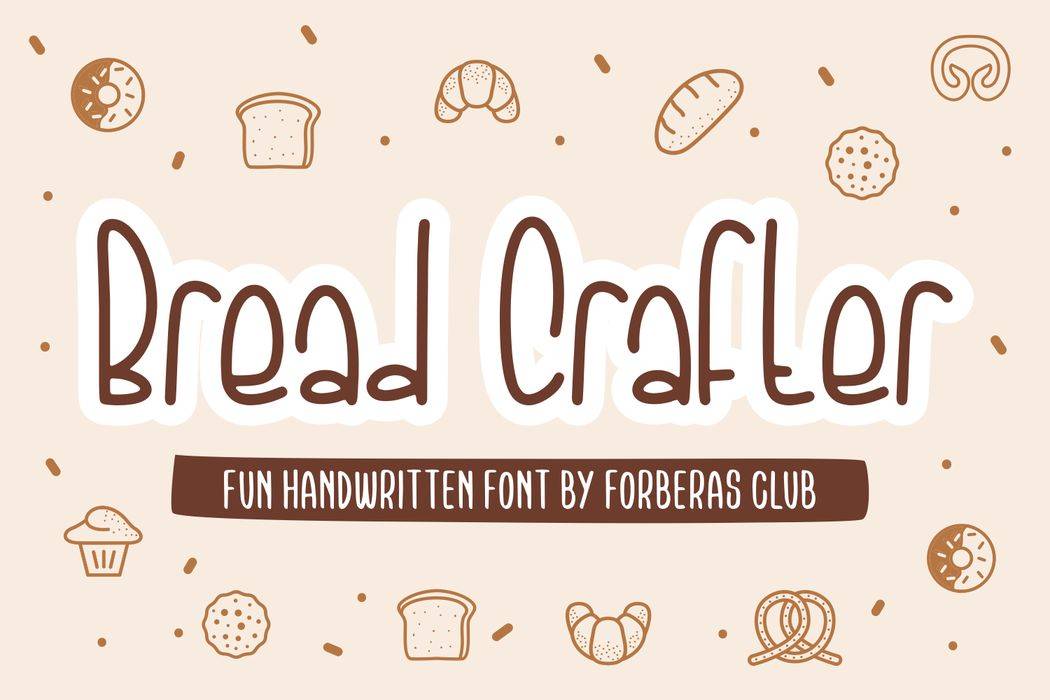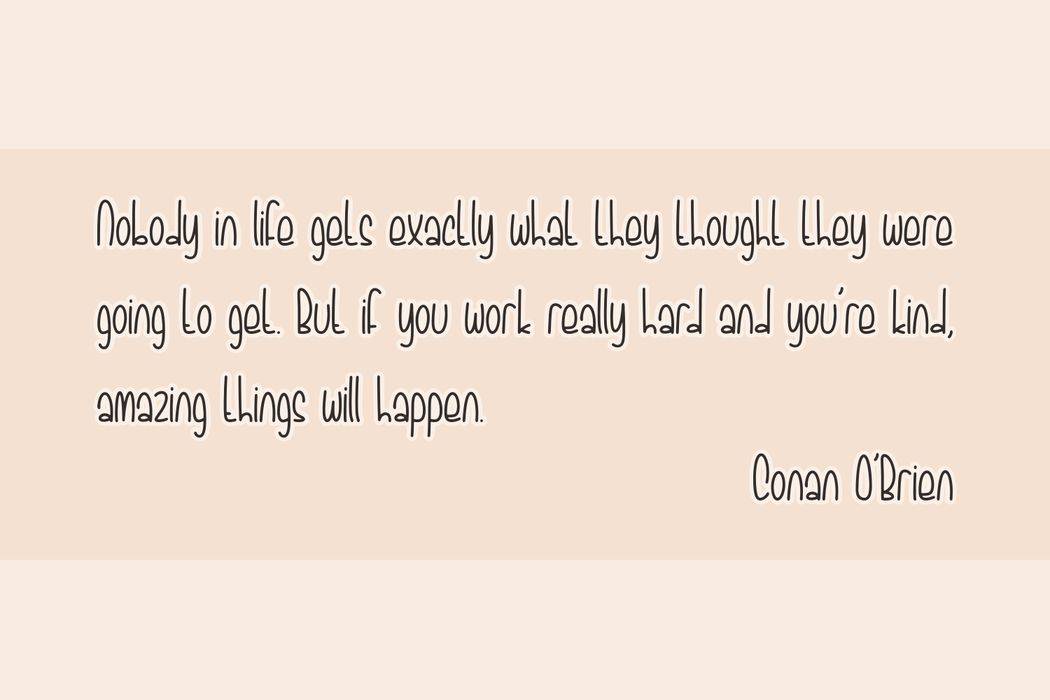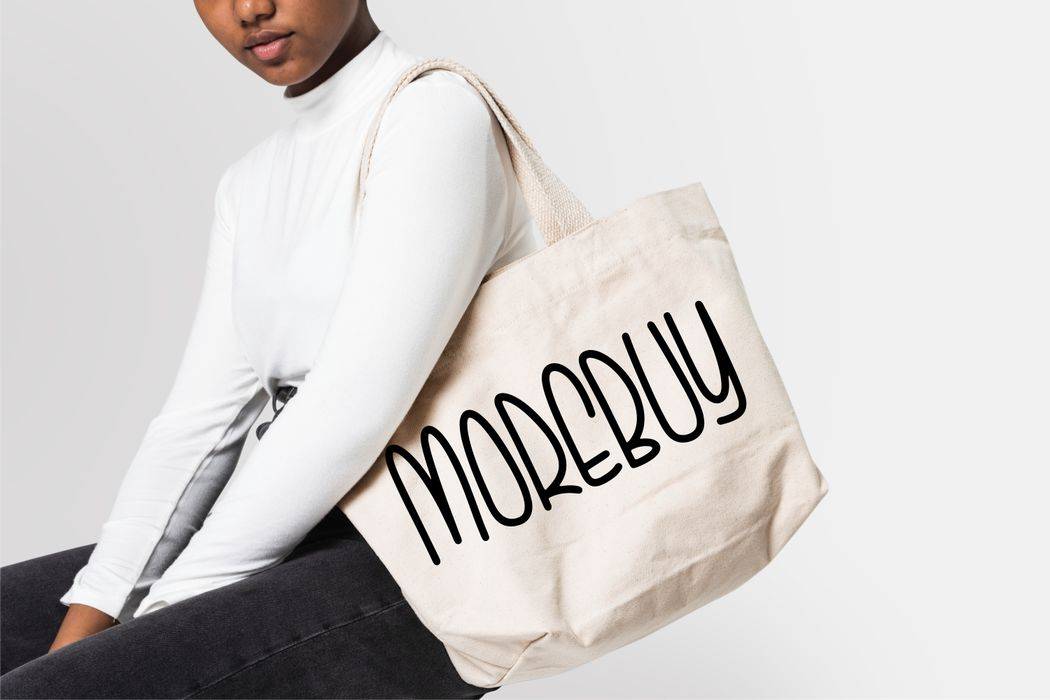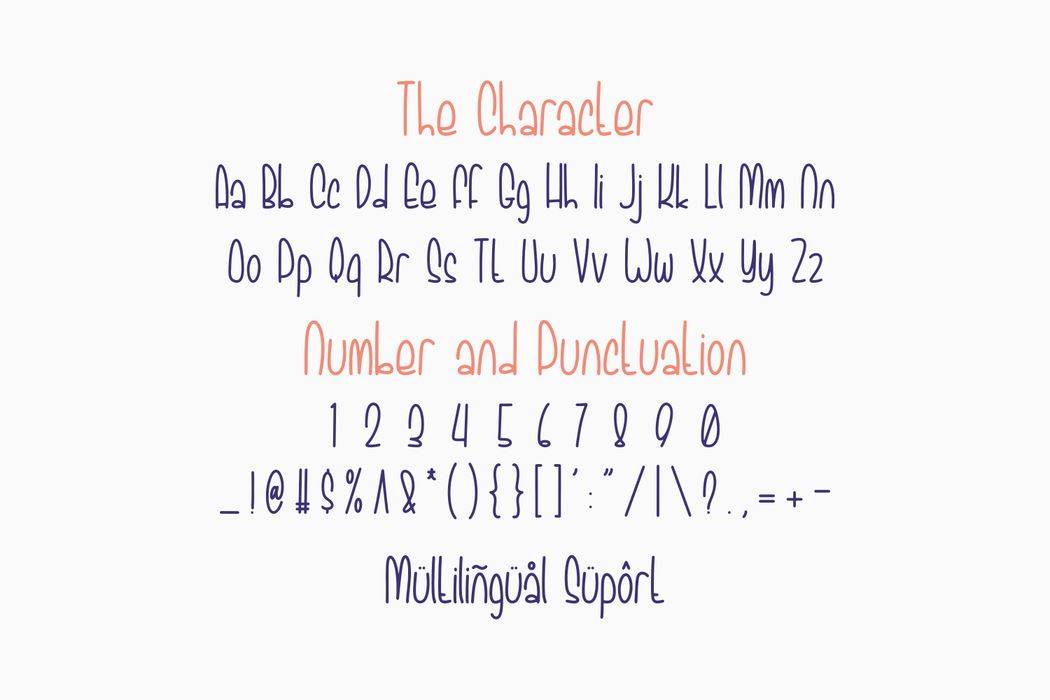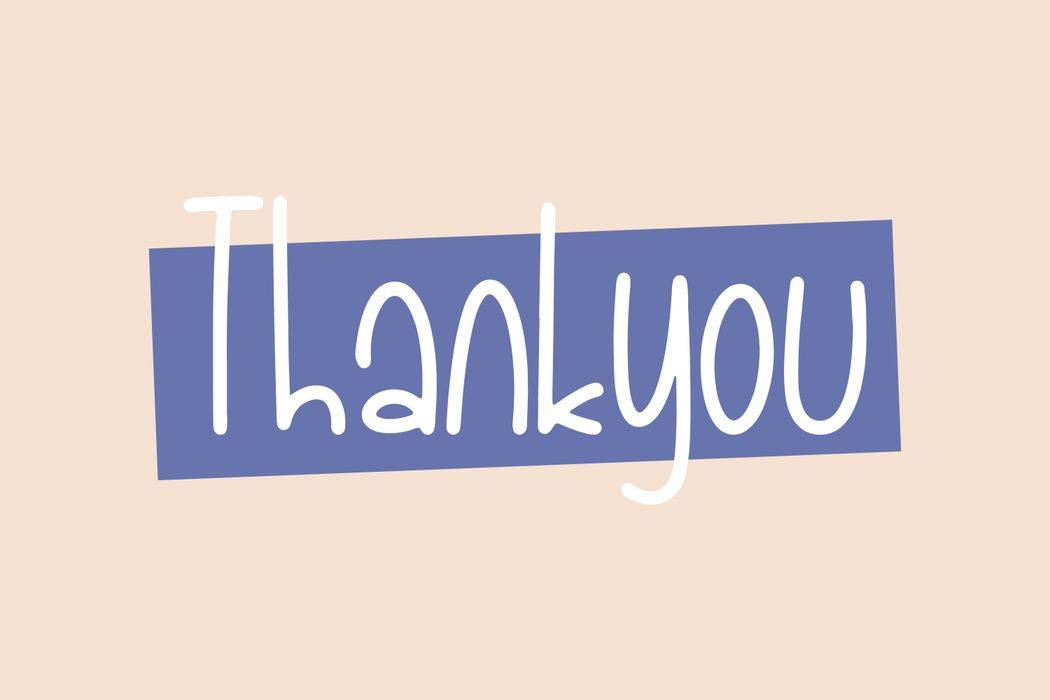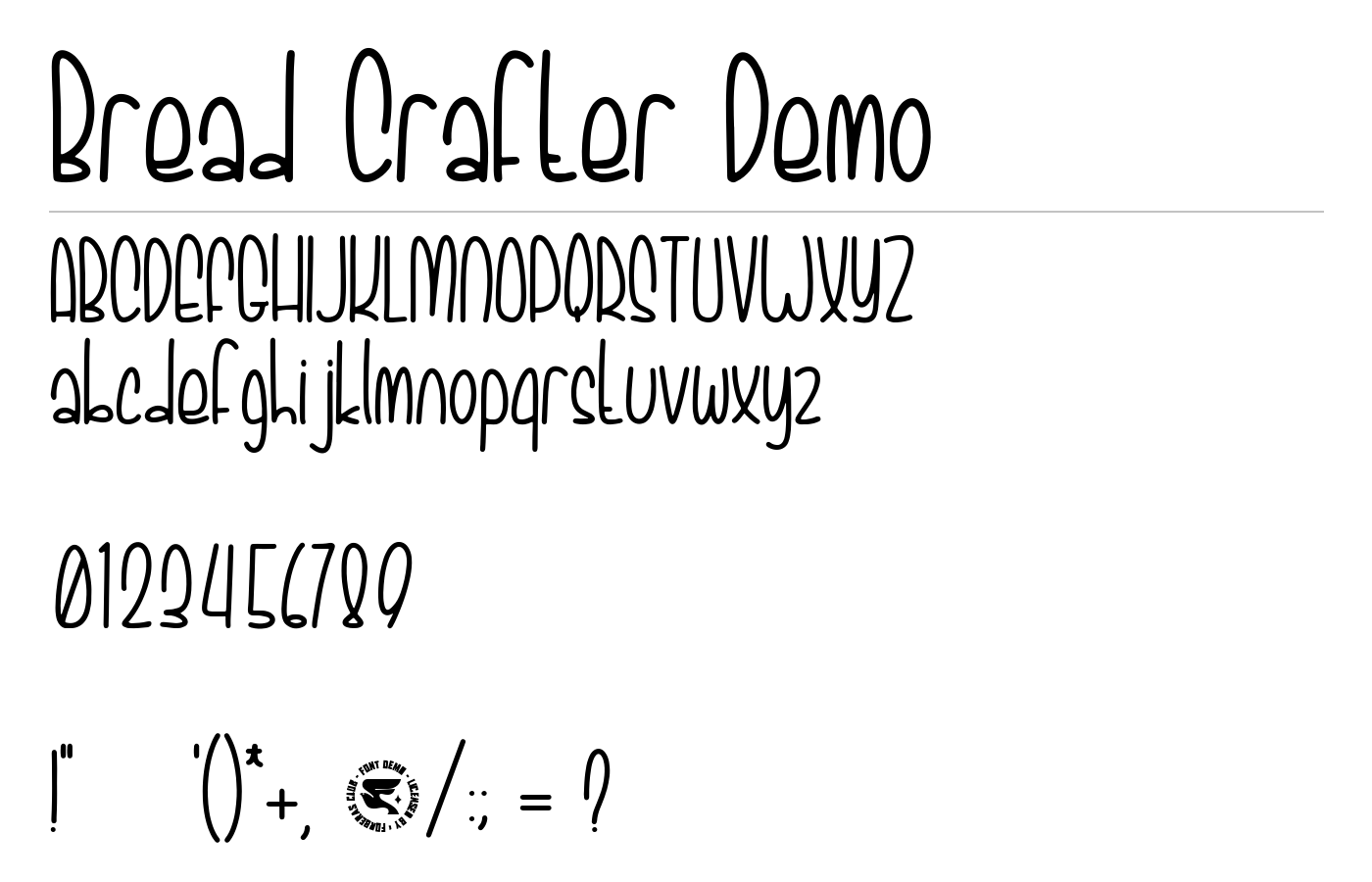
Bread Crafter is a playful, hand-drawn sans serif font with tall, narrow letterforms and a casual, friendly feel. Its irregular strokes and simple shapes make it perfect for projects that want to evoke warmth and creativity, such as craft branding, kids’ content, or informal headlines. This font works well for adding a personal, approachable touch to designs without sacrificing readability.
Bread Crafter Font
About Bread Crafter Font